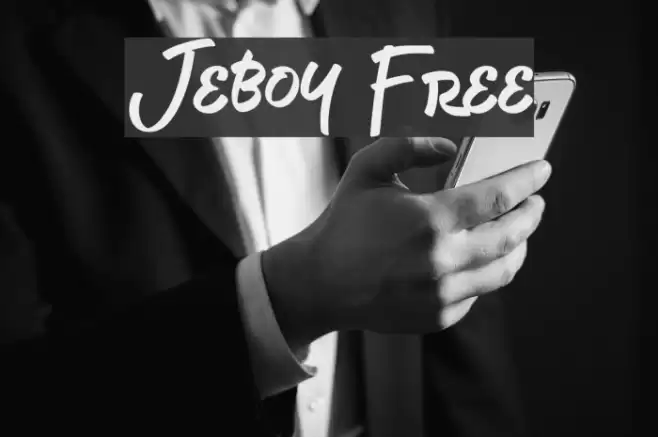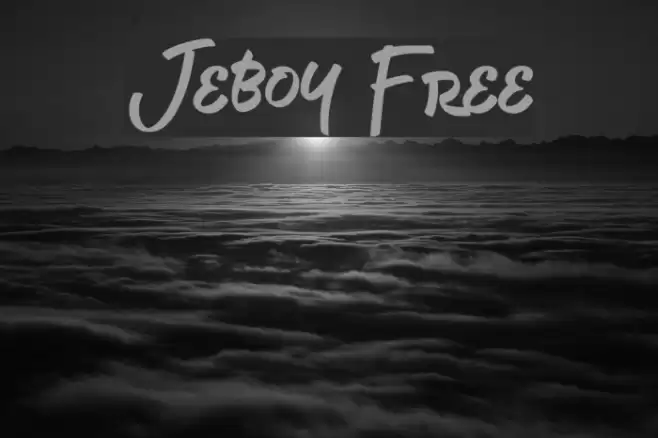
Jeboy Free Font
Jeboy Free Description
This font features a dynamic and expressive style, characterized by its flowing, handwritten appearance. The letters are bold and slightly slanted, giving a sense of movement and energy. The uppercase letters are particularly striking, with unique flourishes and varying line thicknesses that add to the font's personality. The lowercase letters maintain a consistent style, complementing the uppercase with their own subtle curves and loops. Numbers are equally expressive, with a playful yet legible design. The special characters blend seamlessly with the rest of the font, maintaining the overall aesthetic. This font is perfect for projects that require a personal touch or a creative flair.
A bold, expressive handwritten font with dynamic flourishes from Handwritten fonts.
- Proposed Projects: Ideal for creative projects such as invitations, greeting cards, posters, and branding materials that require a personal and artistic touch.
- Use Case: Headlines, Logos, Invitations